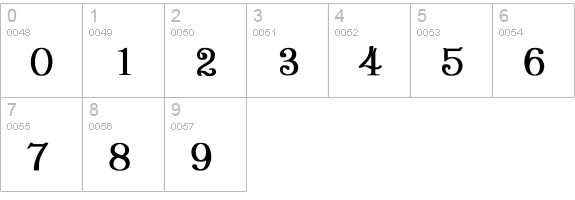
ProvLite Bold is a strong, high-contrast variant in the ProvLite typeface family \xE2\x80\x94 well suited to headlines, attention-grabbing titles, and strong calls-to-action.
ProvLite Bold is a modern and stylish font that exudes confidence and sophistication. With its striking bold weight and clean, sleek lines, this font is perfect for making a bold statement in your designs. Whether you're creating a logo, heading, or poster, ProvLite Bold will elevate your project and grab attention. The versatility of this font allows it to be used in a variety of design projects, from branding to editorial design. The best part? ProvLite Bold is available for free download at FontsMarket.com. This means you can easily access this high-quality font to enhance your projects without any cost. Don't miss out on the opportunity to add ProvLite Bold to your font library and take your designs to the next level. Download it today and start creating stunning visuals with this eye-catching font.